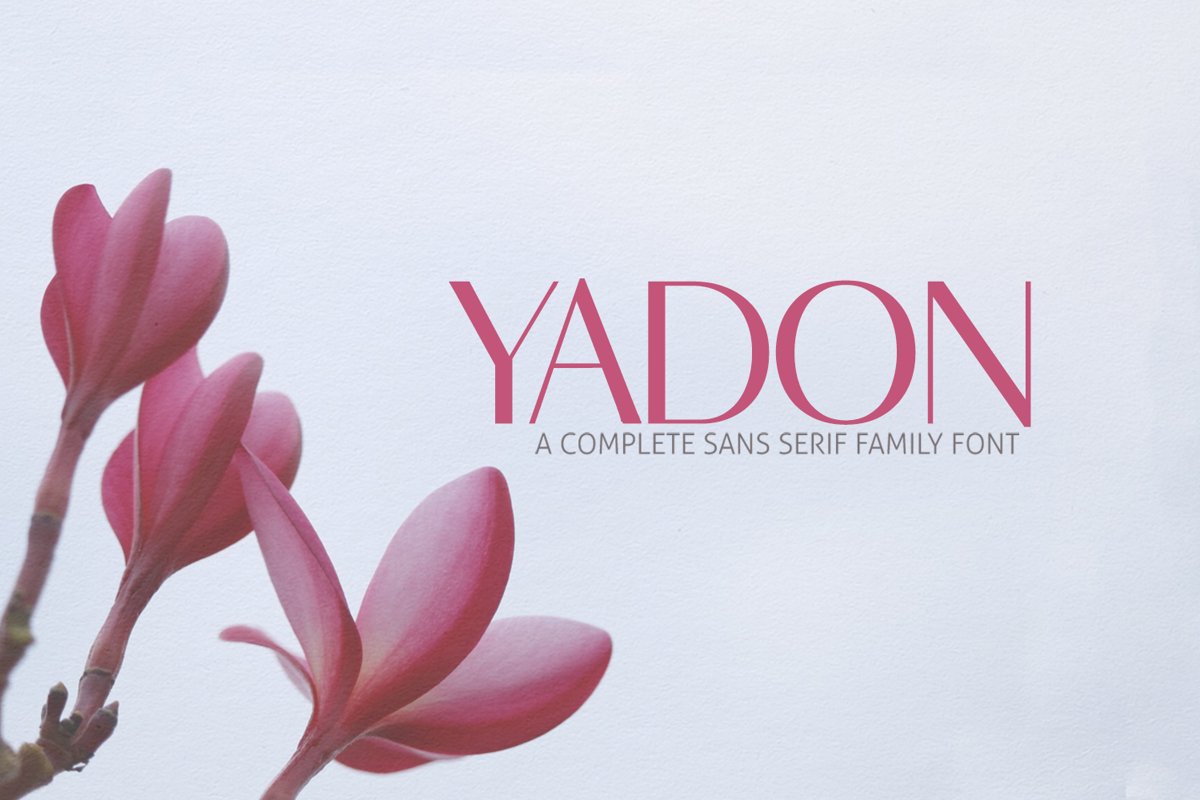
Yadon Sans Serif Typeface
Yadon Sans Serif font is a set of 7 weights and it is good for making creative displays and it has art-deco touch. It’s a lovely and unique sans serif font in our store, allowing you to make each word look completely stylish! It Suits best for modern / clean designs, logos, headlines, banners and templates etc. It looks gorgeous in all caps with a wide-set spacing if you want to try a classy look, or beautiful on its own in capital and lowercase letters for something completely timeless.Updates
• Font Weight: Light, Thin, Medium, Regular, Distorted, Black, Bold
Yadon Font Features:
• Uppercase Multilingual Letters
• Lowercase Multilingual Letters
• Alternative